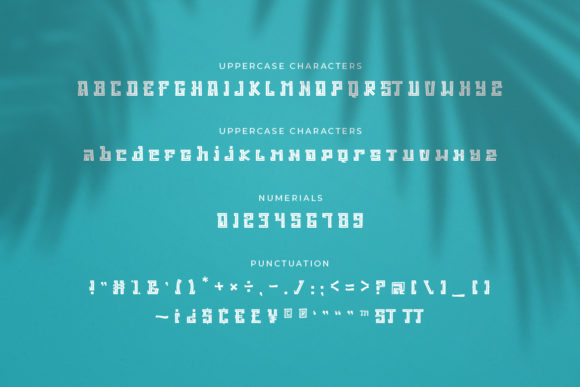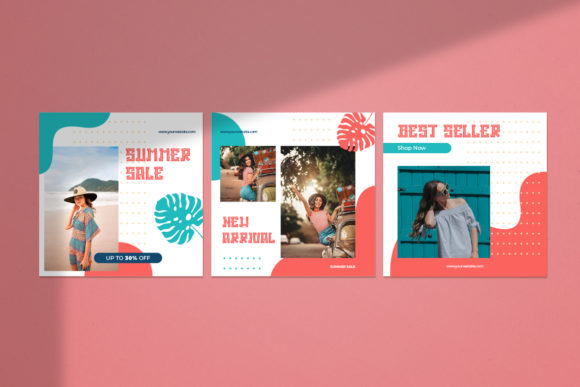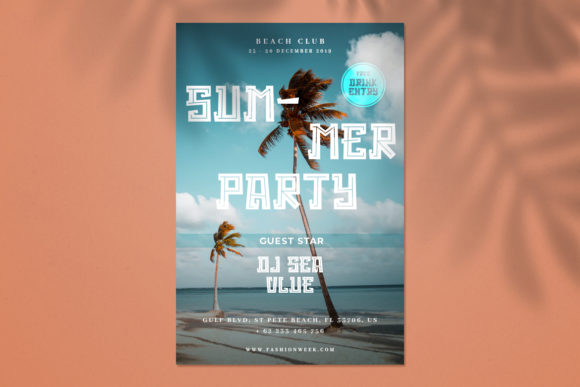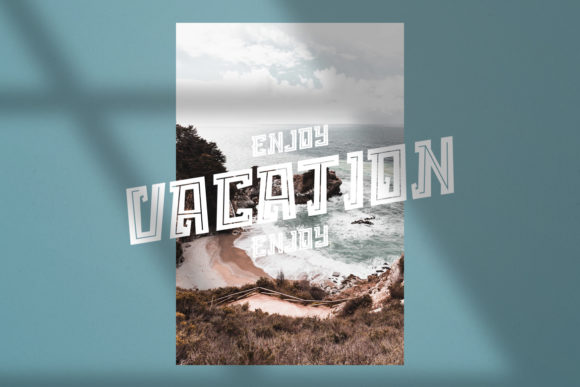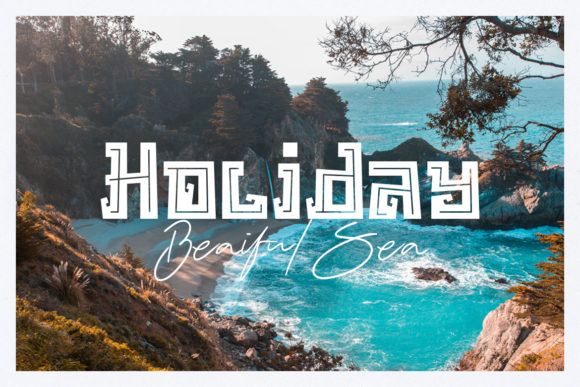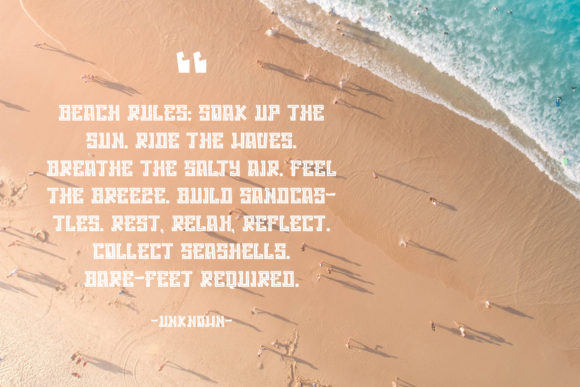
Introduction to Beach Boy Font Font
Fonts play a crucial role in design, and the Beach Boy Font font is a typeface that brings both character and versatility to any project. Whether you’re working on a branding project, a website, or a print design, the Beach Boy Font font offers a unique style that can elevate your work.
Beach Boy is a bold and unique display font.
It celebrates abstract shapes in all their eclectic beauty Add this font to your creative ideas and notice how it will make them stand out.
Key Features of Beach Boy Font Font
Why Choose Beach Boy Font Font?
The Beach Boy Font font is more than just a typeface – it’s a design tool that helps you communicate your message with style and clarity. Its unique character set and versatile design make it suitable for a wide range of applications, from elegant invitations to bold headlines.
With its carefully crafted letterforms and balanced proportions, the Beach Boy Font font ensures readability and visual appeal across all mediums.
What makes Beach Boy Font font special?
The Beach Boy Font font stands out with its unique design, exceptional readability, and versatility across various design applications.